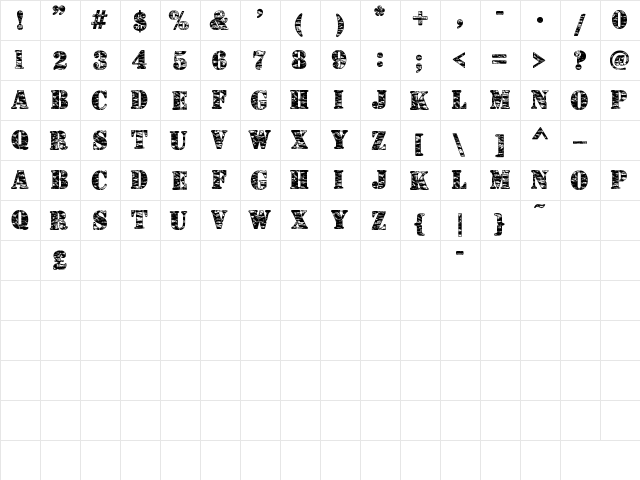
Camouflage Jungle Jungle
Design Context for Camouflage Jungle Typeface
Camouflage Jungle has the no-nonsense character of military stencilling and tactical signage, projecting authority and directness.
Designed for tactical branding, military-inspired apparel, action game UI, and utility-focused signage.
Pro Tip: Use Camouflage Jungle at medium-to-large sizes where its utilitarian structure can be appreciated — the character detail gets lost at small sizes.